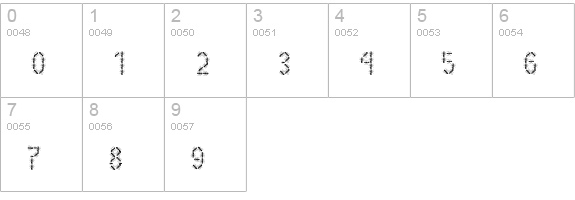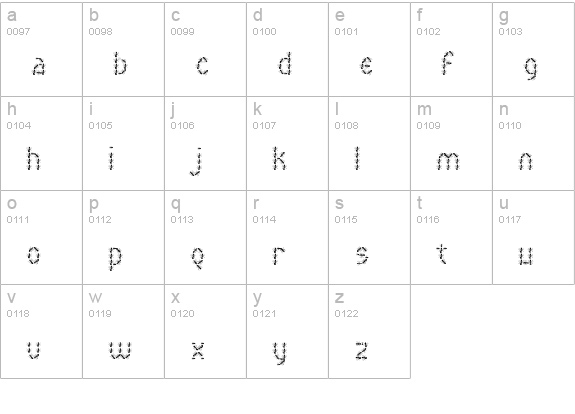
AntsyPantsy Font Details
AntsyPantsy font is a whimsical and playful typeface that exudes a sense of fun and creativity. Its quirky and irregular letterforms give your designs a unique and energetic look, making it perfect for projects that need a touch of personality. Whether you're working on a children's book, a party invitation, or a branding project that requires a more lighthearted approach, AntsyPantsy is sure to bring a sense of charm and character to your work. Best of all, AntsyPantsy font is completely free to use and is available for download at FontsMarket.com. Embrace the free-spirited nature of this font and let your creativity run wild with AntsyPantsy!